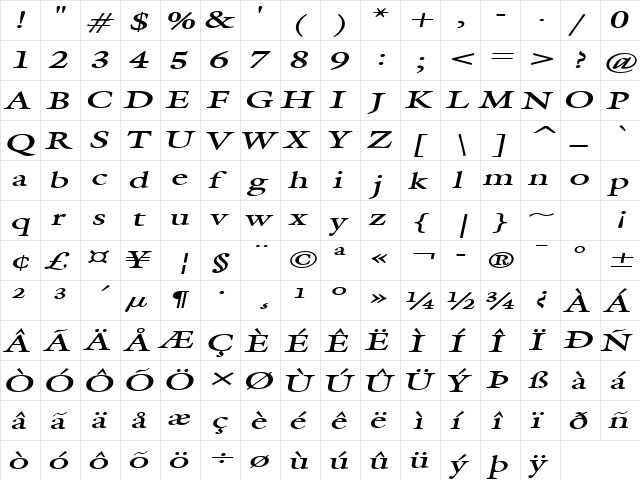
Galant Extended BoldItalic
Design Context for Galant Extended Typeface
Galant Extended is a composed and adaptable typeface that performs quietly and consistently across a wide range of design contexts. The slanted form adds forward momentum and visual energy. The heavy weight commands attention and anchors typographic hierarchies.
Pro Tip: Try Galant Extended for annotation and caption copy alongside an upright companion — the contrast in angle creates a dynamic but ordered typographic system.